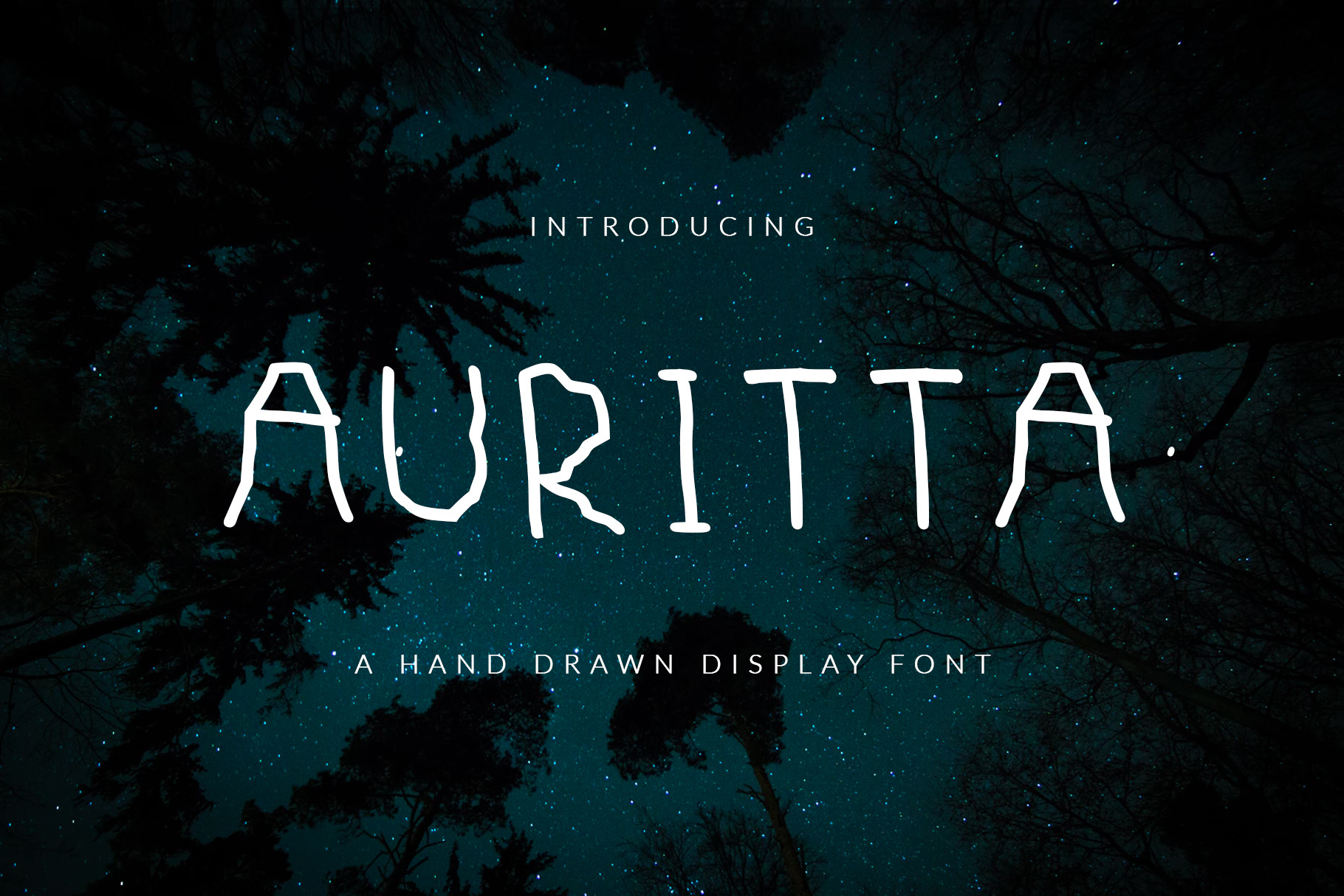
Auritta Font Display Sans
Sans serif hand-drawn display font called Auritta was designed for modern, childish, unique and other style also fit for Kids story and book.